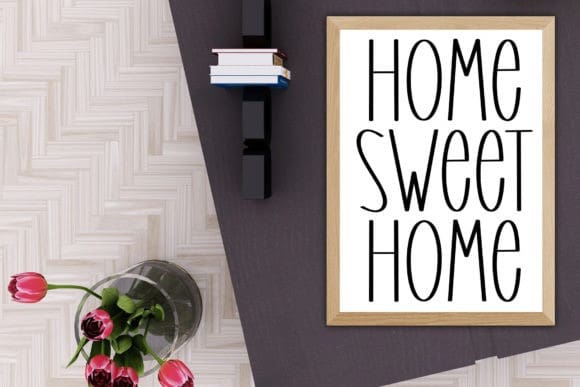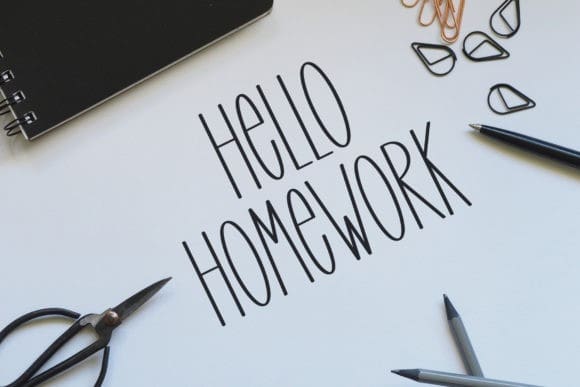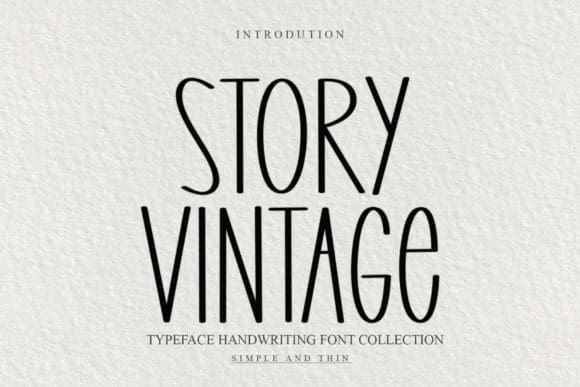
Story Vintage Font
Story Vintage Font is a slim and neat handwritten font that will make your work stand out through its elegant and curvy lines. It is perfect for product packaging, branding project, magazine covers, social media, wedding, or just used to express words above the background.